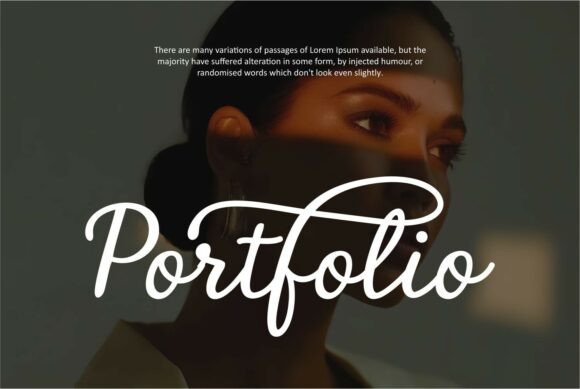
Family Font
Family is a modern handwritten script font that beautifully combines elegance, femininity, and personal warmth.
Designed with soft monoline strokes and romantic decorative swashes, it’s the perfect choice for wedding invitations, signature logos, fashion branding, and personal stationery.
Each letter flows gracefully, creating a sense of love, intimacy, and timeless charm — making your design feel authentic, stylish, and emotionally connected.
Whether you’re designing for a wedding project, boutique logo, or chic social media design, Family Script adds that personal handwritten touch that turns every word into art.